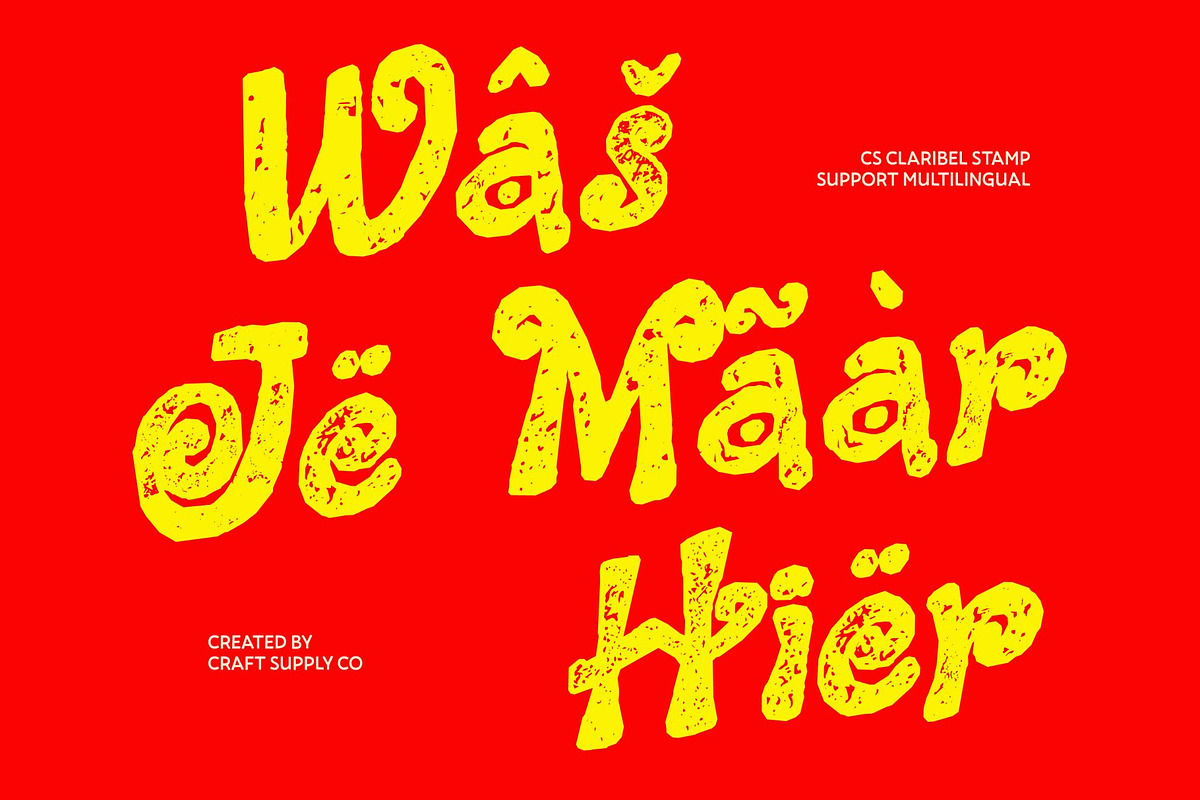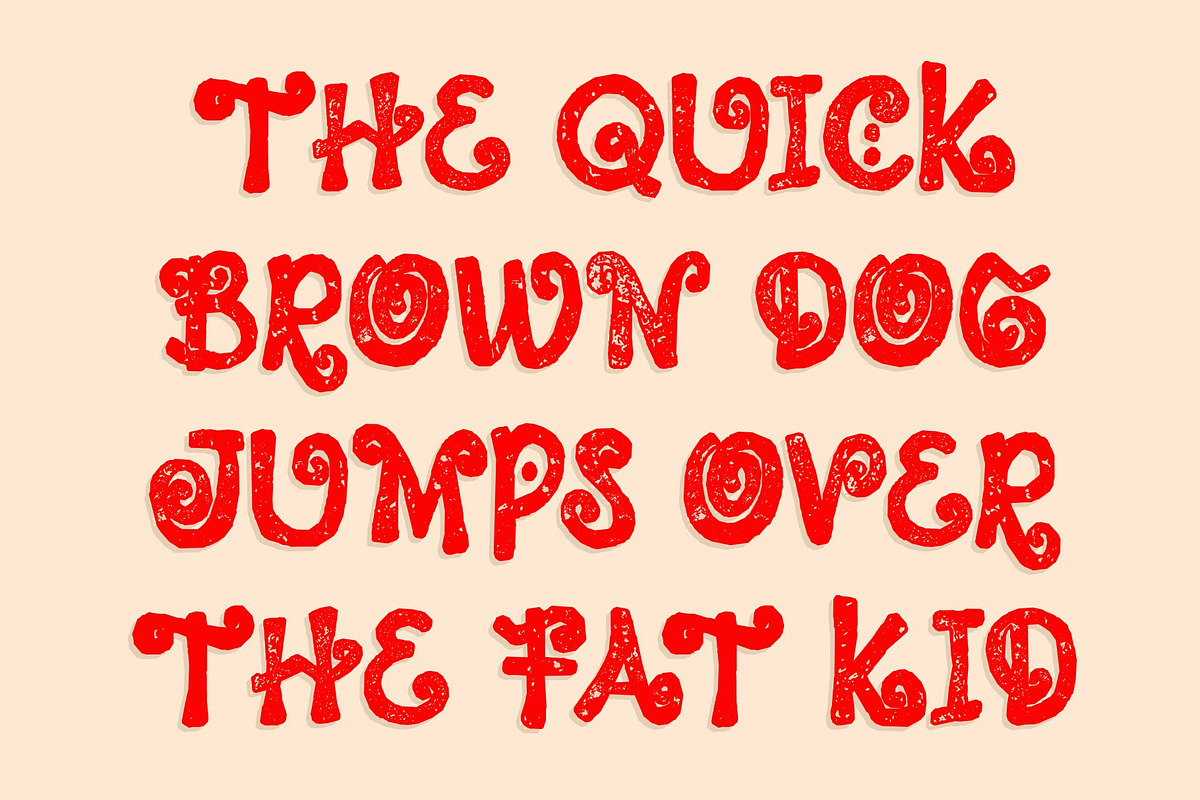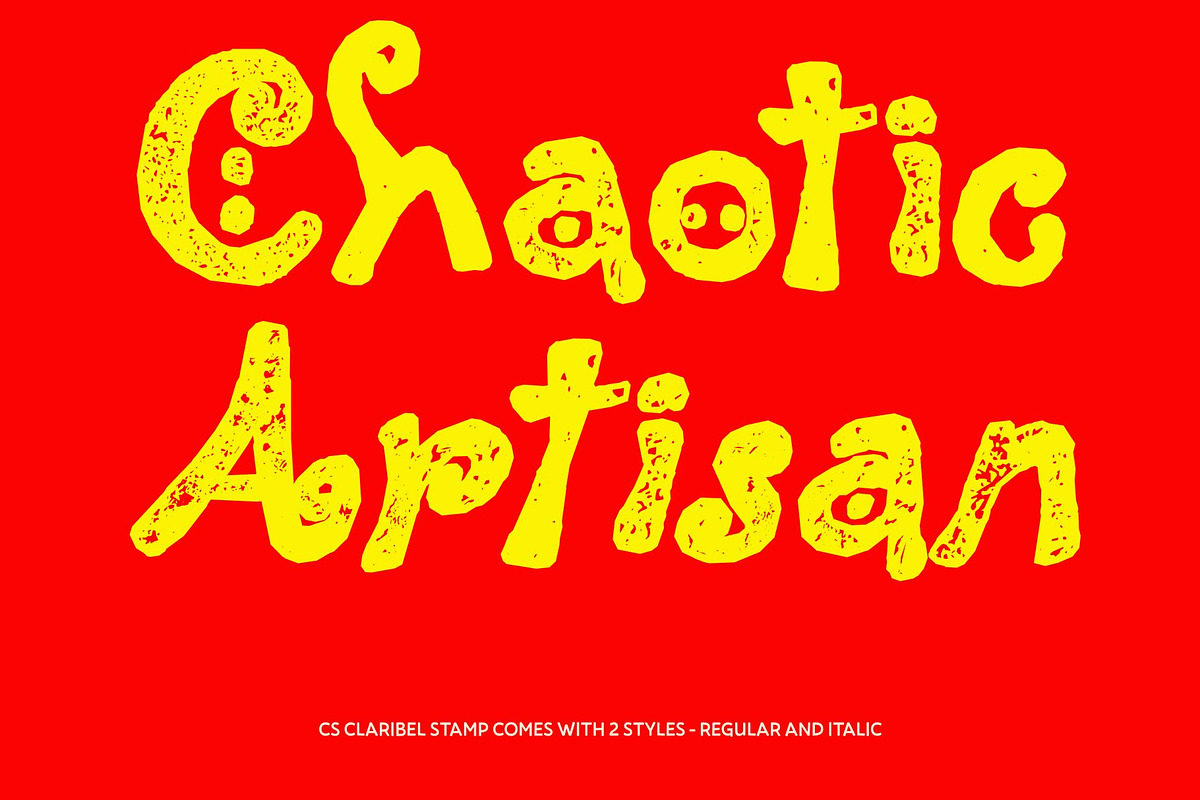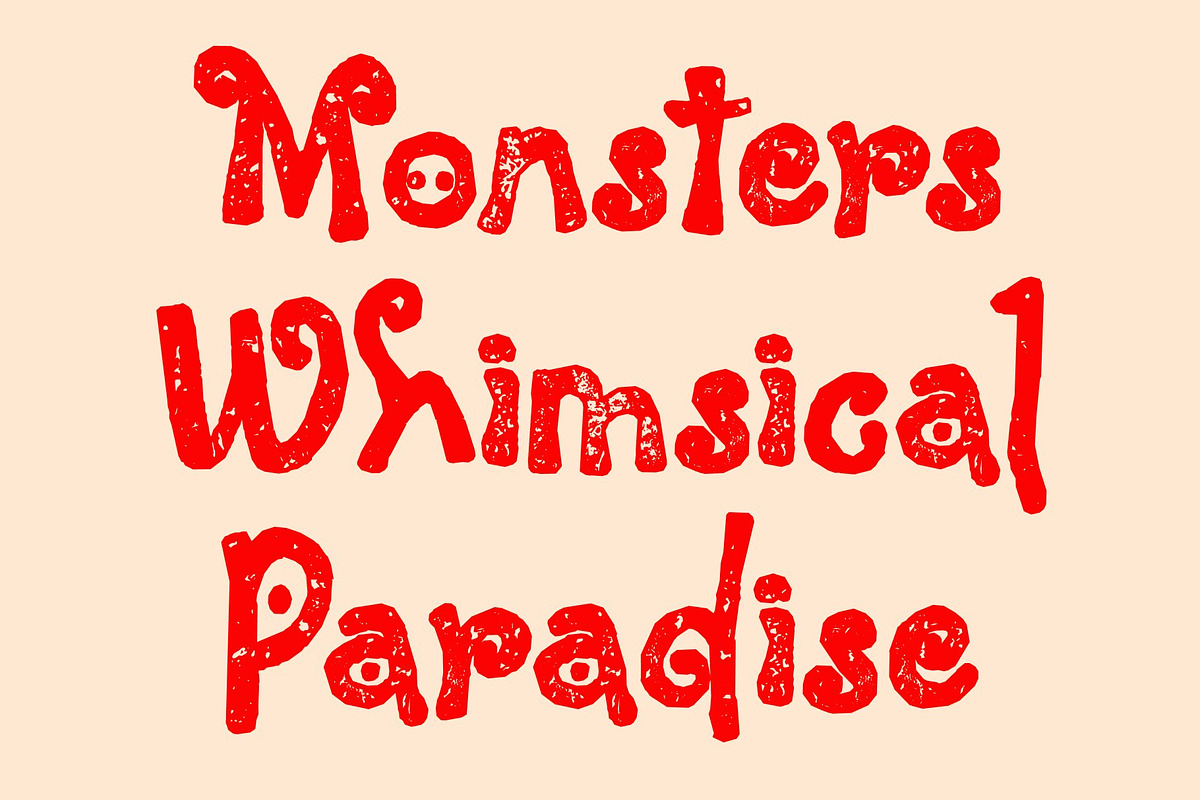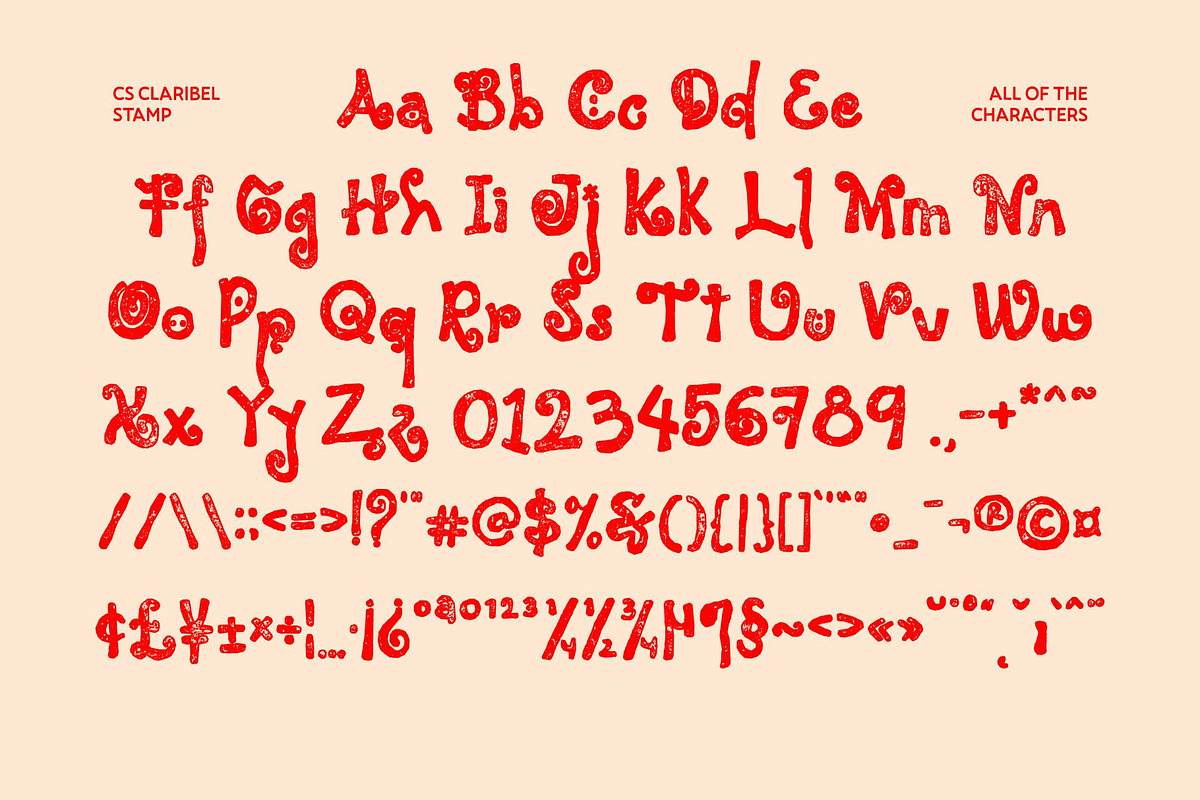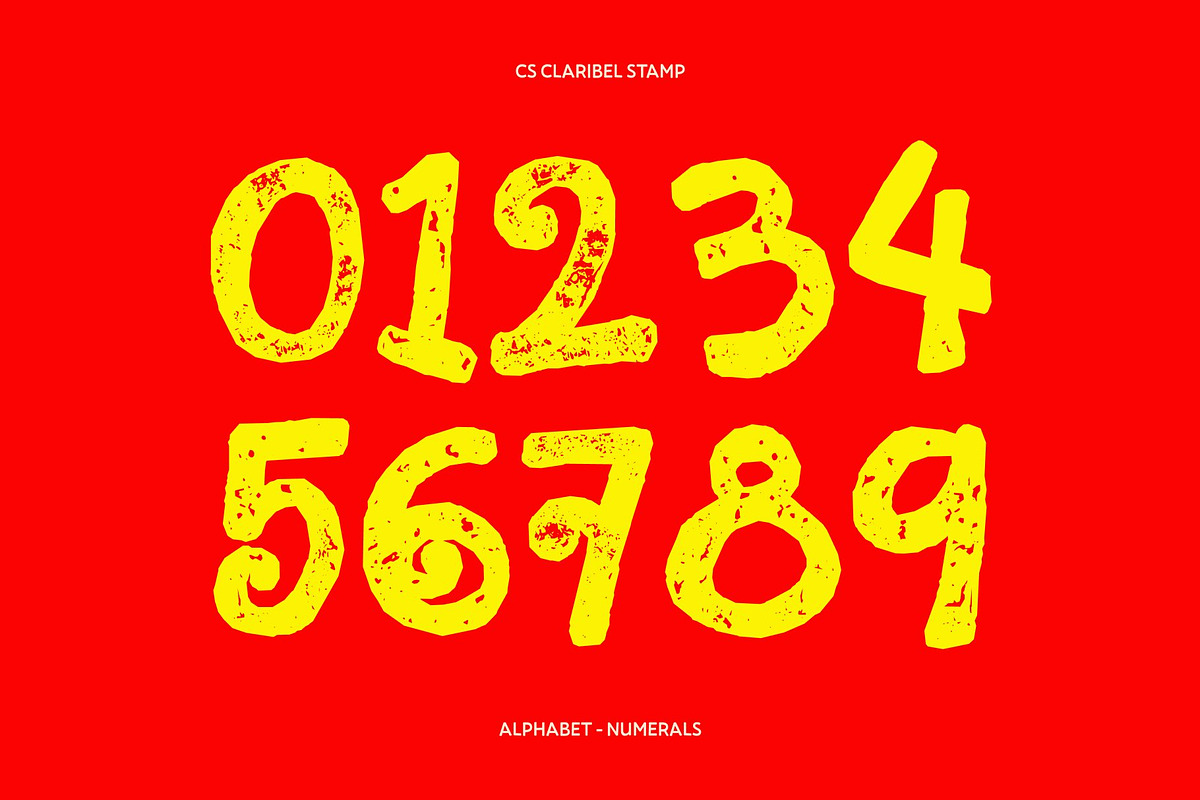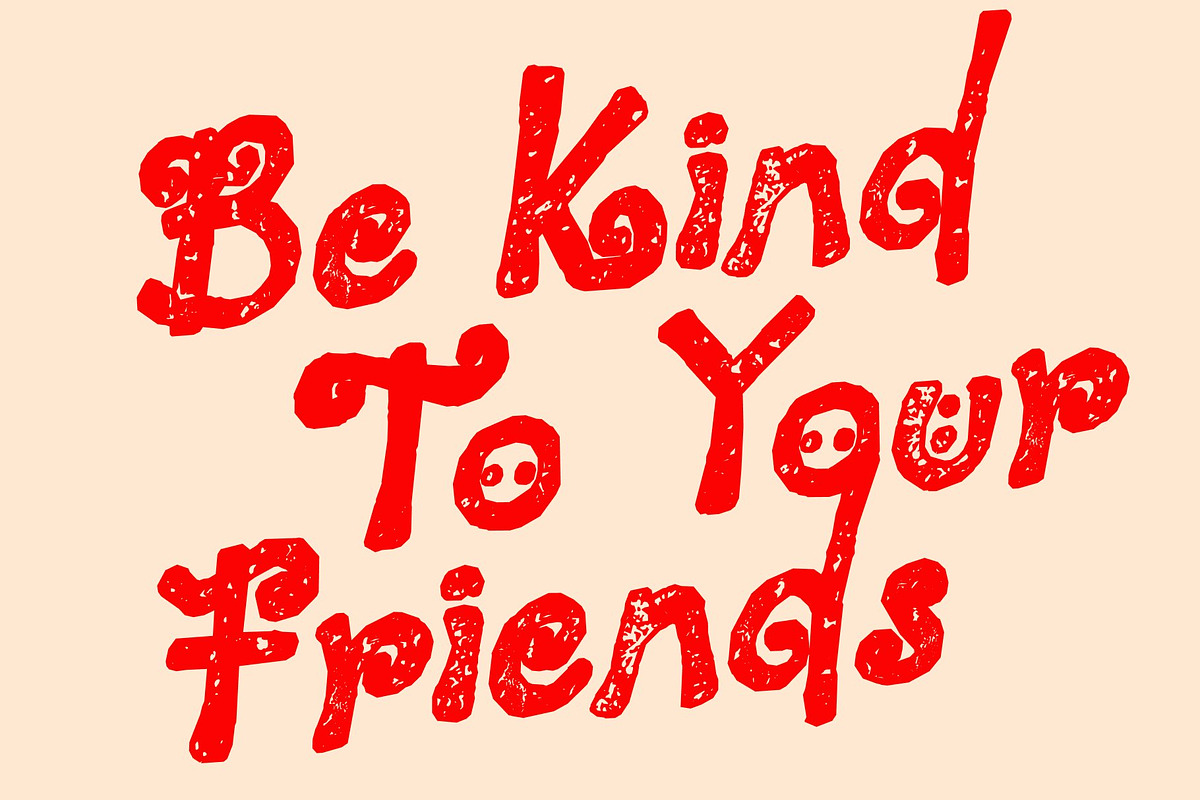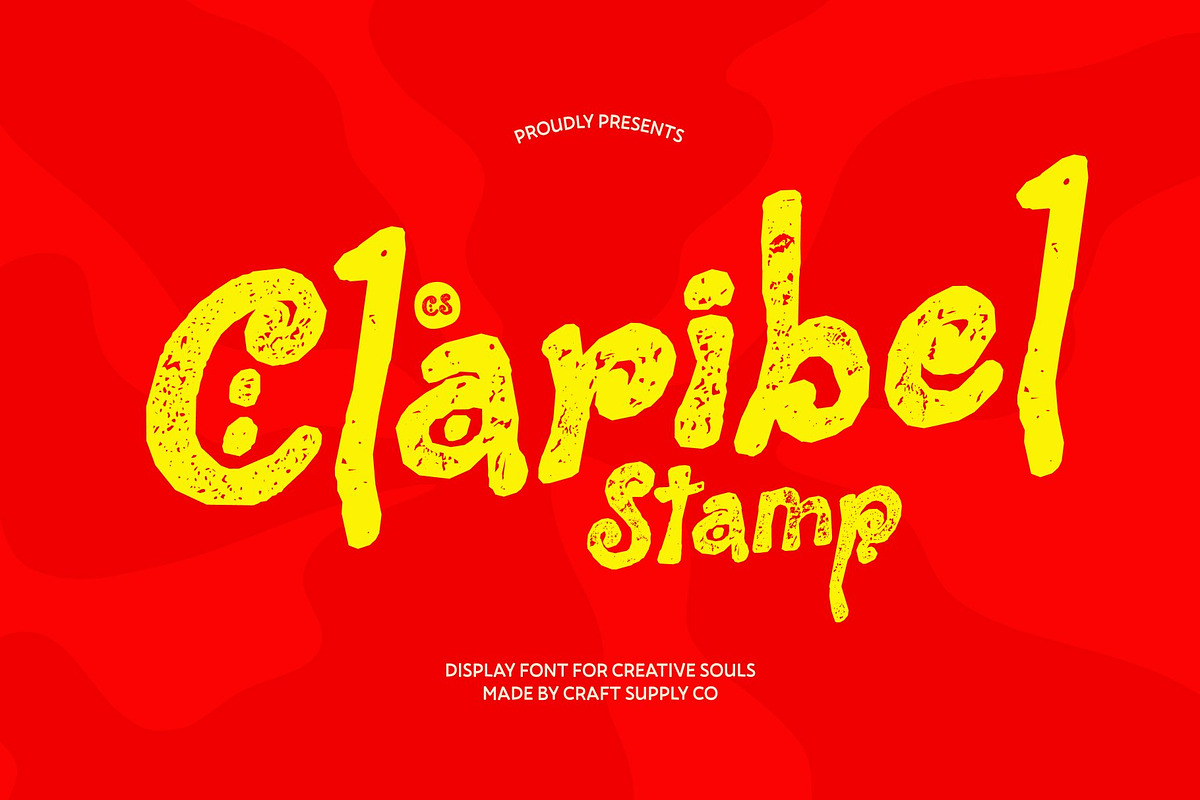
CS Claribel Stamp
CS Claribel Stamp – Whimsical Fantasy with Vintage Texture
Decorative Display Font with Artistic Handwritten Style This is a decorative display font that blends artistic handwritten expression with whimsical, fantasy-inspired beauty. Its flowing strokes and ornate details create a graceful, imaginative rhythm that feels both elegant and enchanting. Enhanced with a stamp effect, the font gains a subtle vintage texture, adding depth and a handcrafted charm to its already expressive form.
Whimsical Curves with Enchanted Character The playful curves and fluid lines give a storybook-like quality, evoking a sense of magic and creativity. The stamp texture introduces delicate ink variations and slightly distressed edges, enriching the design with an organic, tactile feel while maintaining its refined and decorative appearance.
Expressive Design with Artistic Depth Every letterform is crafted to feel personal and poetic, turning simple text into a visual centerpiece. The combination of elegant handwritten style and textured finish creates a font that is both expressive and visually captivating, perfect for storytelling through typography.
Perfect for Invitations, Branding, and Creative Projects Ideal for wedding invitations, boutique branding, event posters, packaging, and artistic designs, this font brings a whimsical and sophisticated presence to any project. Its fusion of fantasy-inspired elegance and vintage stamp texture ensures a unique and memorable typographic experience that feels magical, refined, and full of personality.
CS Claribel Stamp Regular
CS Claribel Stamp Italic